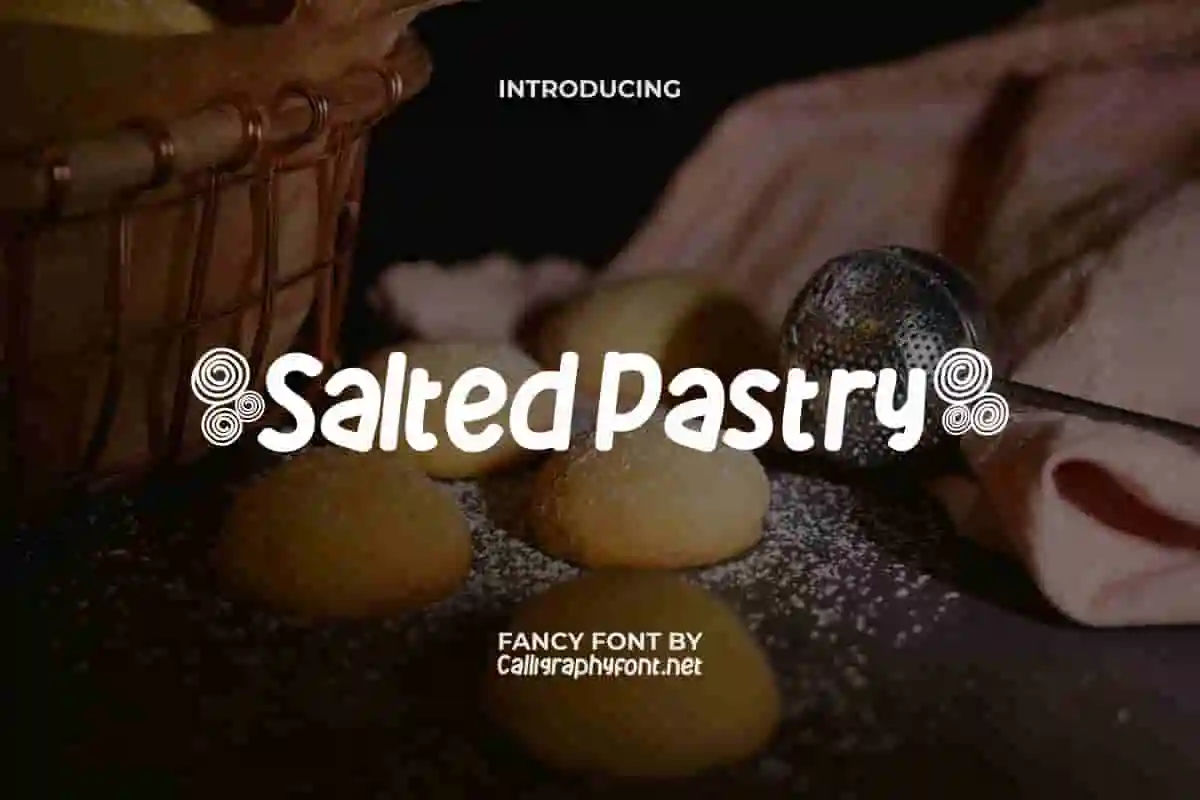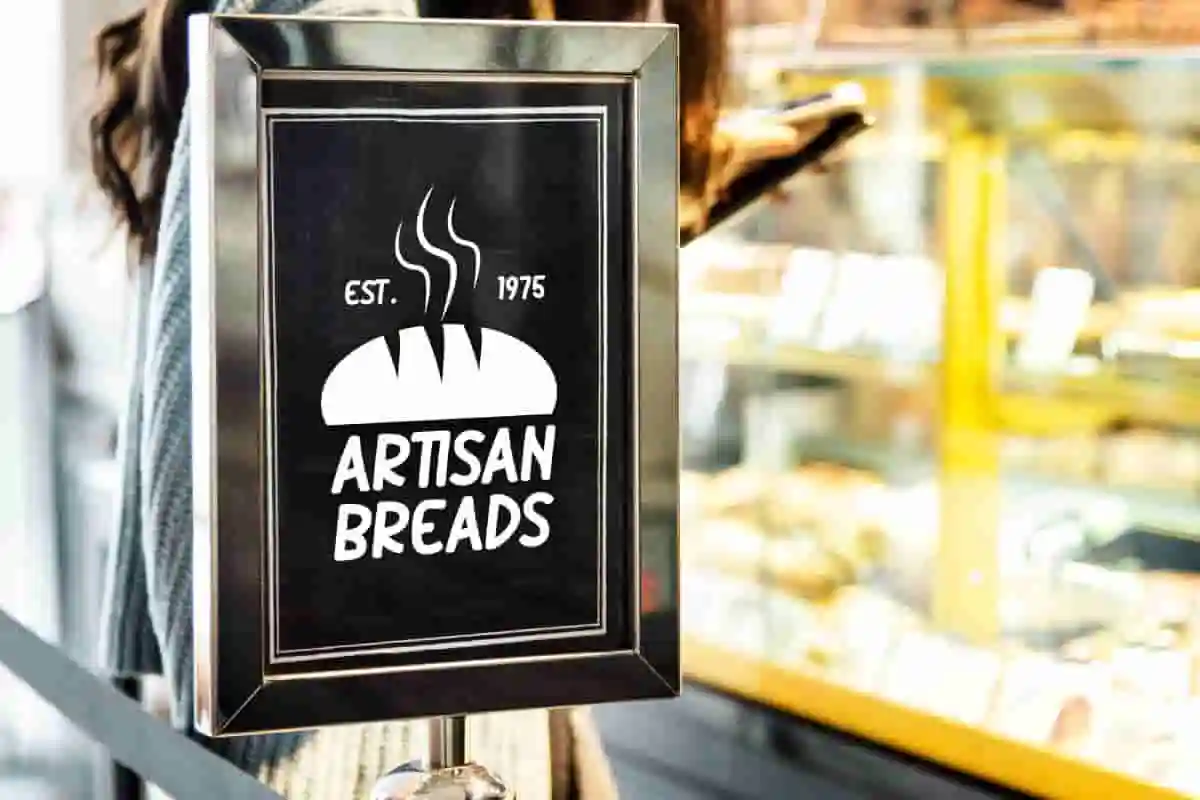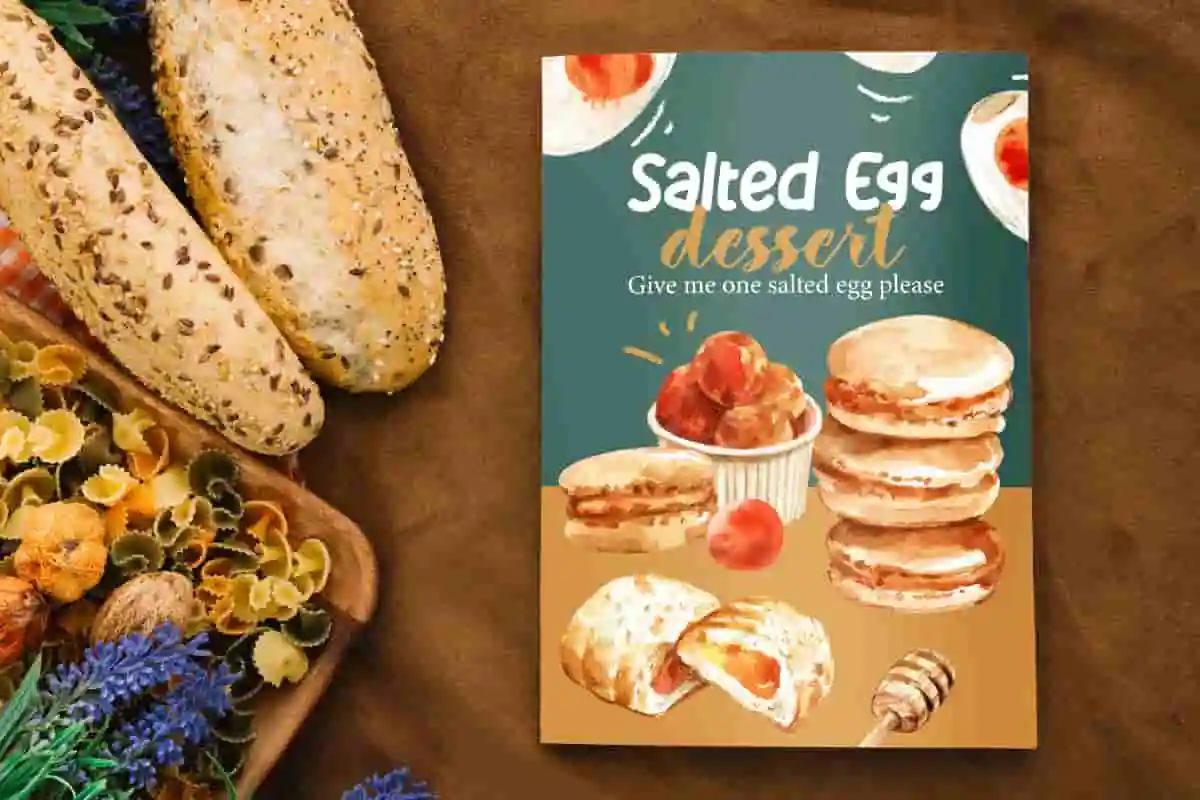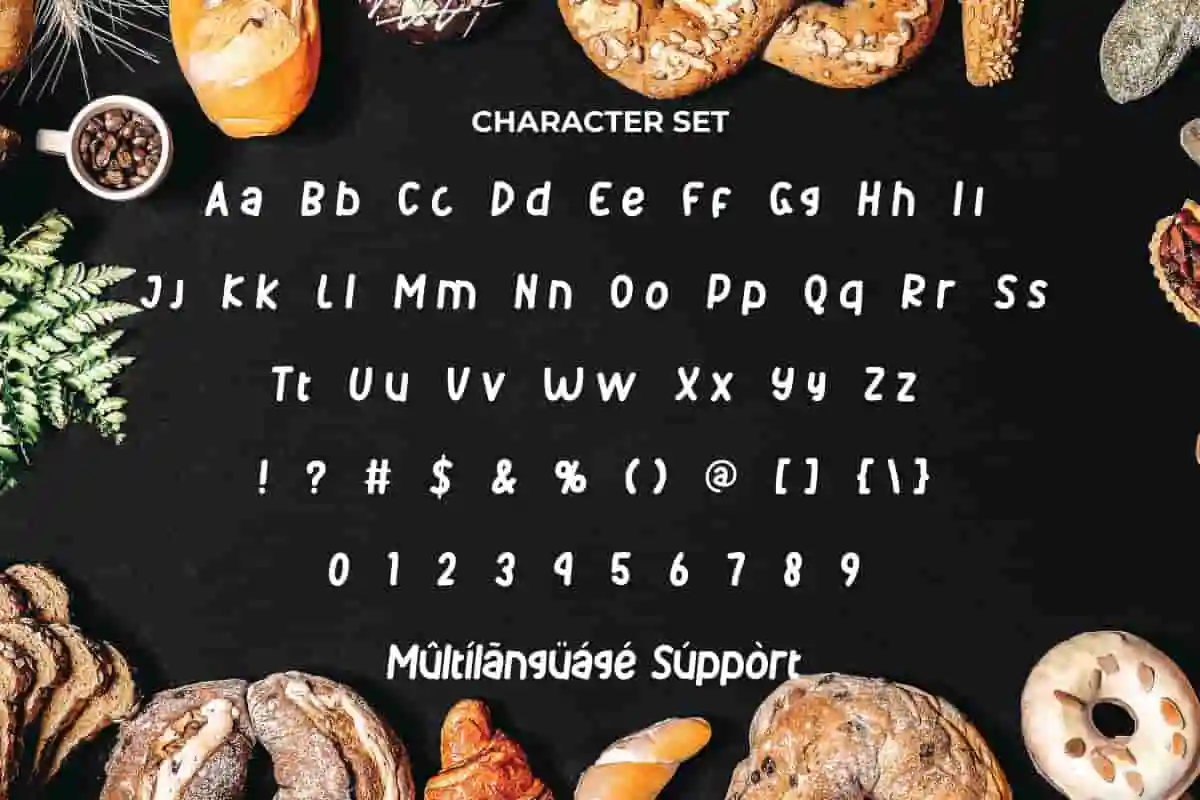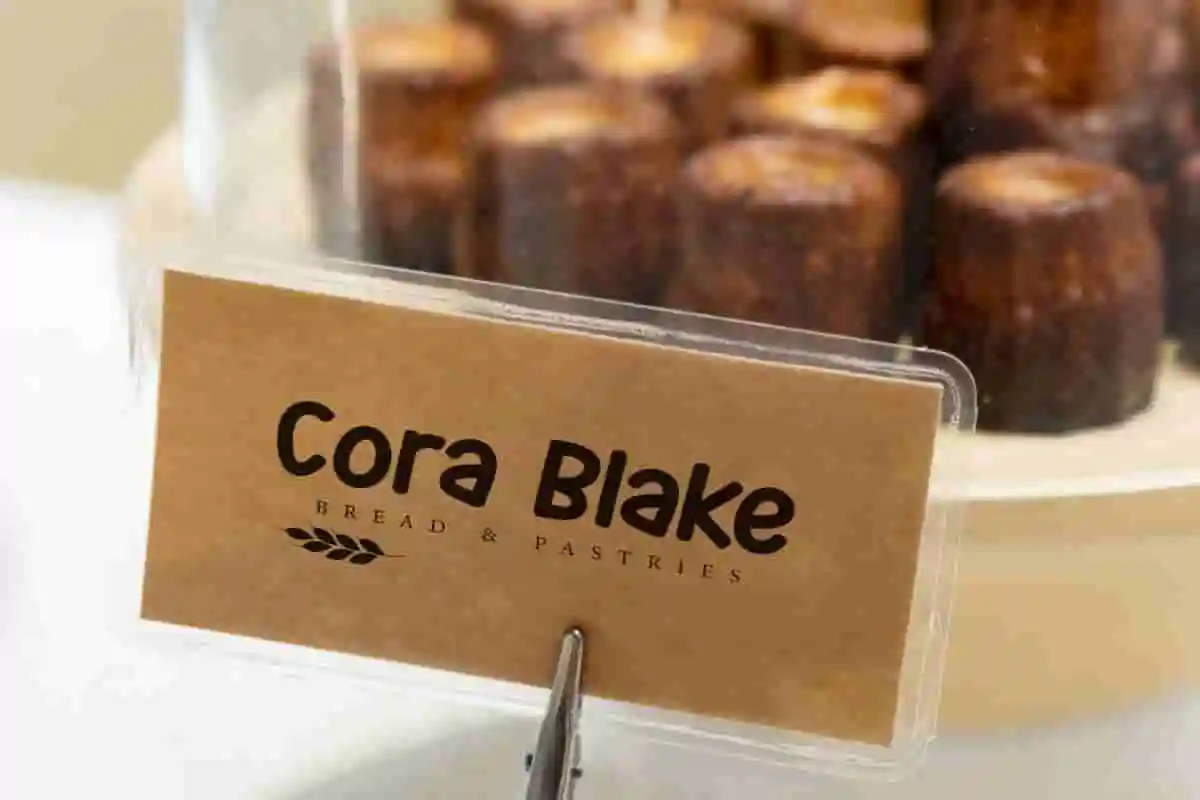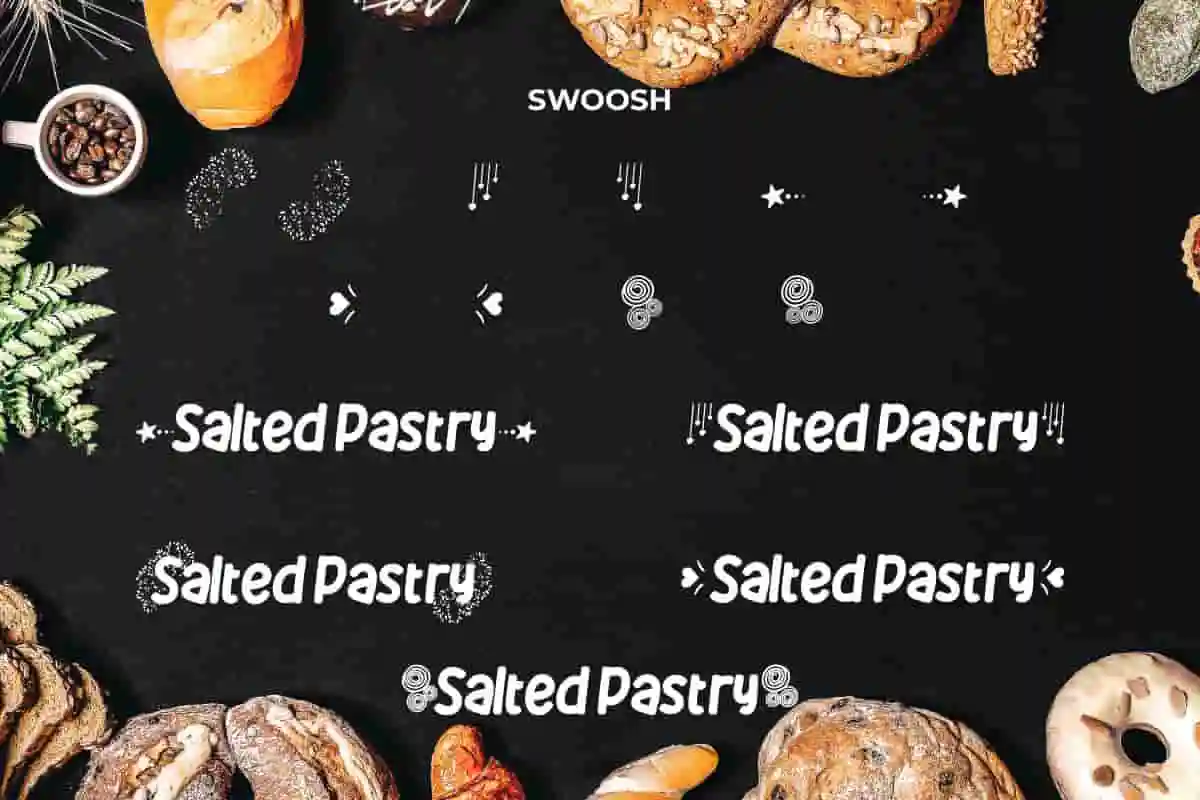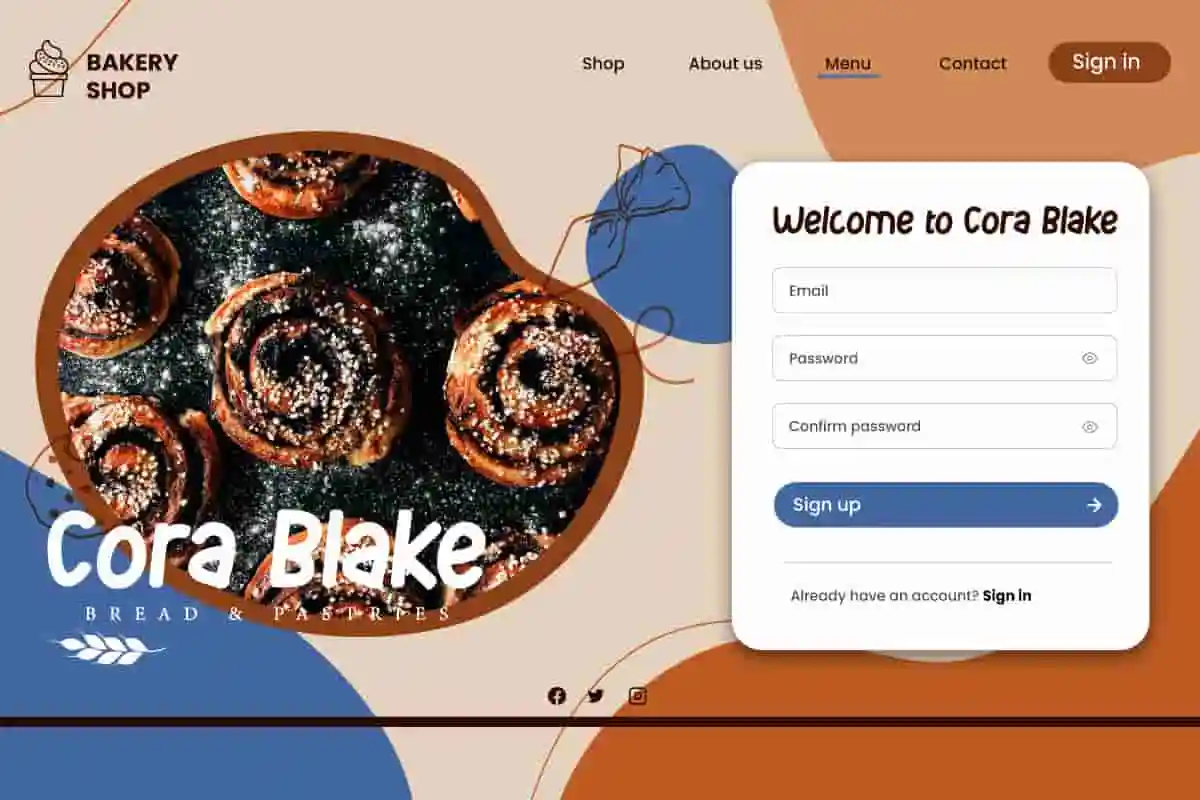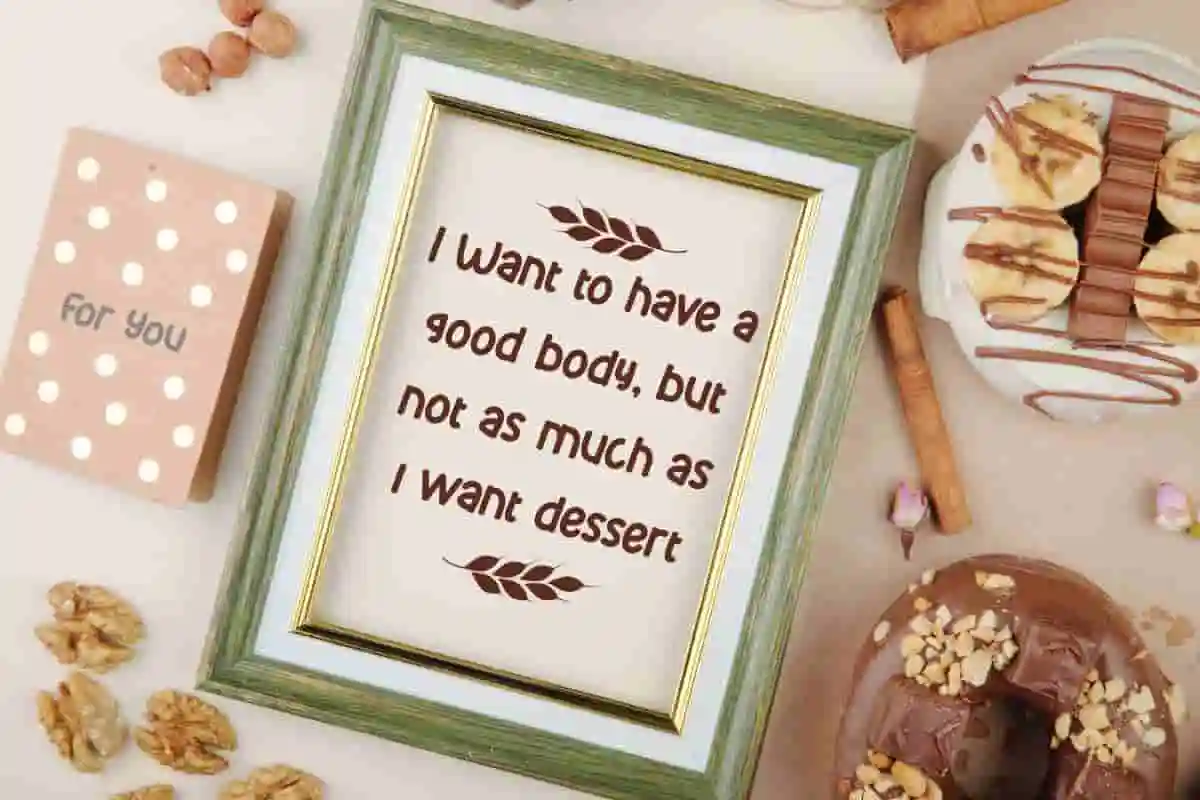
Salted Pastry Font
Salted Pastry Font is a playful simple yet cute fancy font which will give a unique impression to each character! This handmade handwriting font is perfect for complementing any of your creations.
Salted Pastry Font is a playful simple yet cute fancy font. This font is designed for those of you who like a simple look that can blend well with many other types of designs and font types. It will be good to complement any project design, such as brand image, brochure, cover, custom design, flyer, invitation, label, marketing material, menu board, poster, screen print, signage, stationery, sticker, thank you card, title, webpage, and many more!
Introducing Salted Pastry Handwriting Font, a delightful typeface designed to add warmth, sweetness, and creativity to your projects. Just like a freshly baked pastry, this font delivers a perfect mix of charm and style, making it the ultimate choice for designers, creators, and business owners who want to stand out.
With its playful yet elegant strokes, Salted Pastry Handwriting Font is ideal for branding, logos, packaging, invitations, social media posts, and more. Whether you’re creating a cozy café menu, designing a bakery logo, or crafting stylish Instagram content, this font adds a touch of handmade authenticity that feels both modern and inviting.
One of the best features of Salted Pastry Handwriting Font is its versatility. It balances a decorative, handwritten style with easy readability, making it suitable for both headlines and body text. Its unique character design ensures that your projects capture attention while maintaining a professional and stylish look.
Salted Pastry Handwriting Font can make each of your designs attractive with its simplicity, so it can be used by various industries, such as advertising, bakery and pastry, beauty product, event organizer, fashion, florist, content creator, graphic design, handicraft, interior design, printing, publishing, restaurant, etc.
Salted Pastry Handwriting Font comes with a full set of Uppercase and Lowercase Basic Characters, Number, a large range of Punctuation, Symbol, and Swoosh. It also comes with multilingual character support. Ready to use both on Windows machine or Mac with simple installations. It’s tested to work well in the Adobe Apps (Illustrator, Adobe InDesign, Adobe Photoshop) CorelDraw, and others. PUA Encode Characters means you can access all the characters easily – Fully accessible without additional design software.